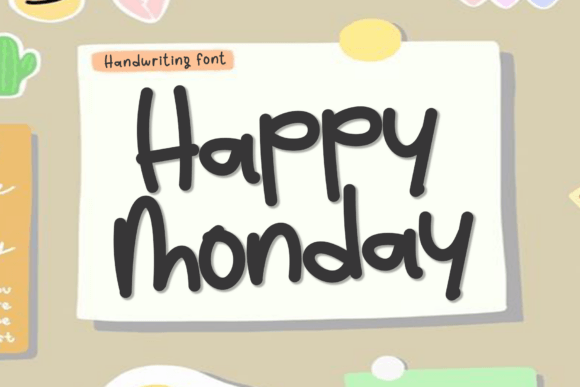
Starting the Week Off Right with the Happy Monday Font
There’s something magical about sitting down at your desk on a Monday morning, surrounded by blank sheets of paper and a blank slate of possibilities. You take a deep breath, grab your favorite pen, and let your creativity flow. For many designers, this moment is the perfect opportunity to add a personal touch to their work – and that’s where the Happy Monday Font comes in.
This delightful handwritten font is more than just a pretty face; it’s a way to convey heartfelt messages and add a touch of warmth to any design. Whether you’re crafting invitations, greeting cards, or branding materials, the Happy Monday Font is the perfect choice. Its whimsical strokes and varied letterforms make it a valuable tool for designers looking to add a personal touch to their work.
Happy Monday Font Key Features
- Font Family: Happy Monday is a sans-serif font family designed for digital use, making it ideal for screen-based applications.
- Unique Characteristics: Happy Monday features a modern, friendly, and approachable design aesthetic, making it perfect for branding, advertising, and editorial content.
Happy Monday Font Review
As a designer, I was excited to dive into the “Happy Monday Font” and see what it had to offer. Here are my honest thoughts.
- Unique and quirky design – it’s definitely a conversation starter.
- Wide range of language support, making it a great choice for global brands.
- High-quality vector files, perfect for scaling and editing.
- Works well for titles and headings, adding a playful touch to any design.
- Lack of legibility in smaller font sizes – it can be hard to read.
- Not ideal for body text – it’s a bit too ornate for everyday use.
- Some characters may not be as polished as others – minor imperfections here and there.
Overall, I think the “Happy Monday Font” is a great choice for designers looking to add some personality to their projects. While it has its limitations, it’s a fun and unique font that can really make a statement. With some careful consideration of its uses and limitations, I think it can be a valuable addition to any design arsenal.
Getting the Most Out of Happy Monday Font
Here are some tips for getting the most out of Happy Monday Font:
- Use it for headings and titles to add a touch of whimsy to your design.
- Pair it with other playful fonts for a unique and eye-catching look.
Here are some common use cases for Happy Monday Font:
- Birthday invitations and party decorations.
- Wedding invitations and decorations.
- Marketing materials and social media graphics.
- Personalized
Alternatives to Happy Monday Font
Great Vibes Font is a modern, elegant script font that is perfect for creating a professional and friendly atmosphere. It is ideal for use in branding, advertising, and digital design projects. Great Vibes Font has a similar feel to Happy Monday Font, but with a more refined and sophisticated look.
Comparison: While Happy Monday Font has a more playful and casual feel, Great Vibes Font is more polished and versatile, making it suitable for a wider range of applications.
Alex Brush Font is a beautiful, handwritten font that is perfect for creating a personal and emotional connection with your audience. It is ideal for use in wedding invitations, greeting cards, and other creative projects. Alex Brush Font has a similar organic feel to Happy Monday Font, but with a more delicate and refined touch.
Comparison: While Happy Monday Font has a more energetic and playful feel, Alex Brush Font is more subdued and elegant, making it suitable for more sensitive and emotional applications.
Carolyna Pro Font is a modern, sans-serif font that is perfect for creating a clean and sophisticated look. It is ideal for use in branding, advertising, and digital design projects. Carolyna Pro Font has a similar modern feel to Happy Monday Font, but with a more geometric and structured approach.